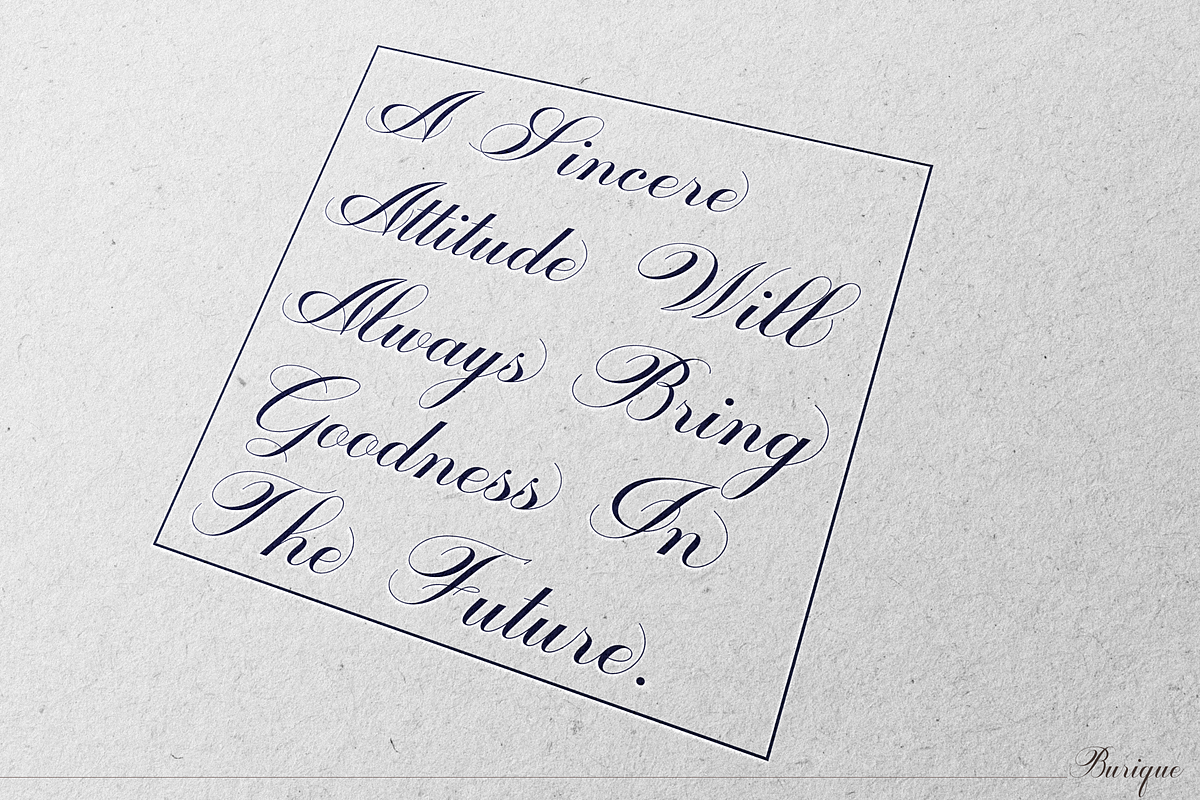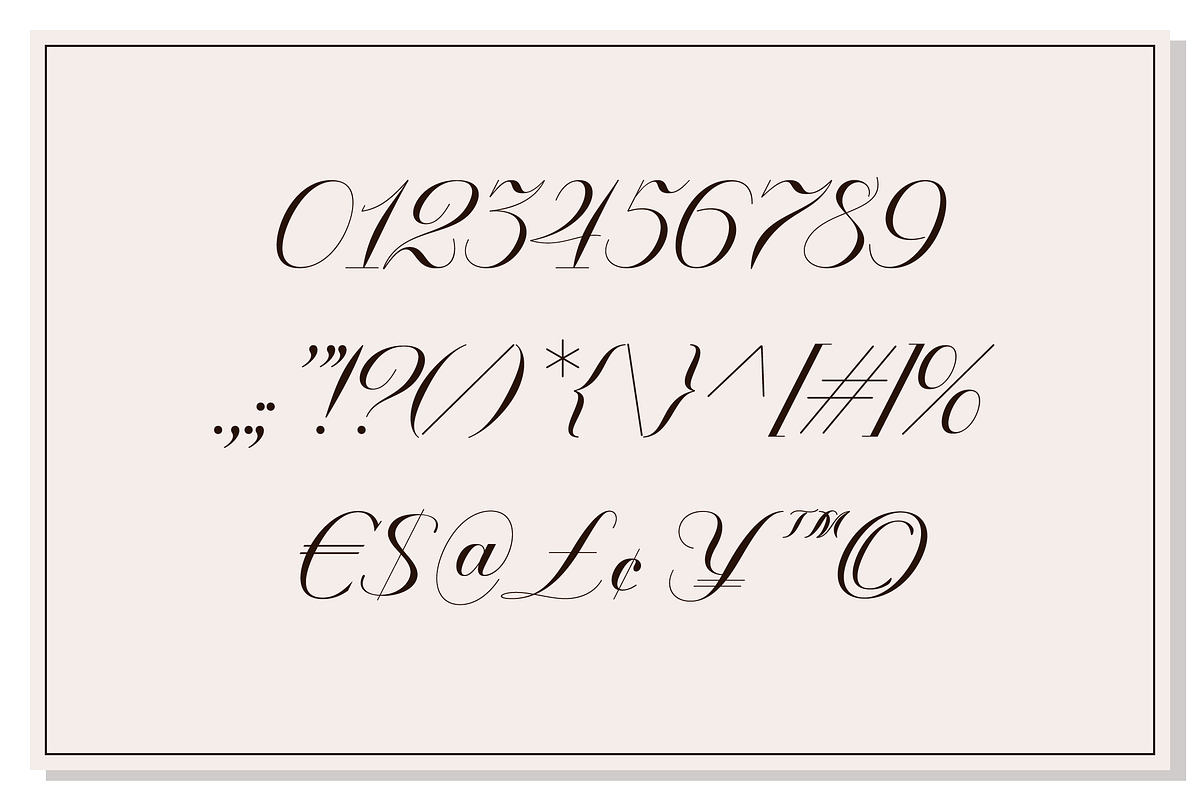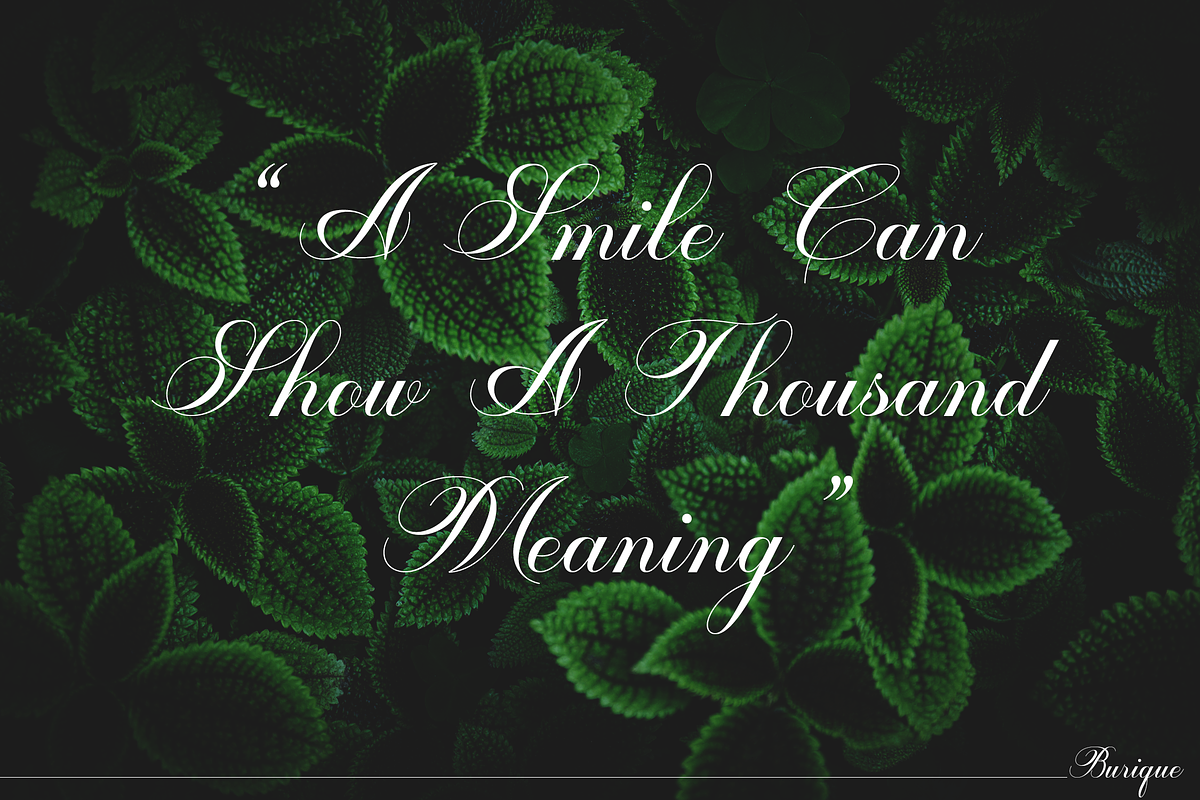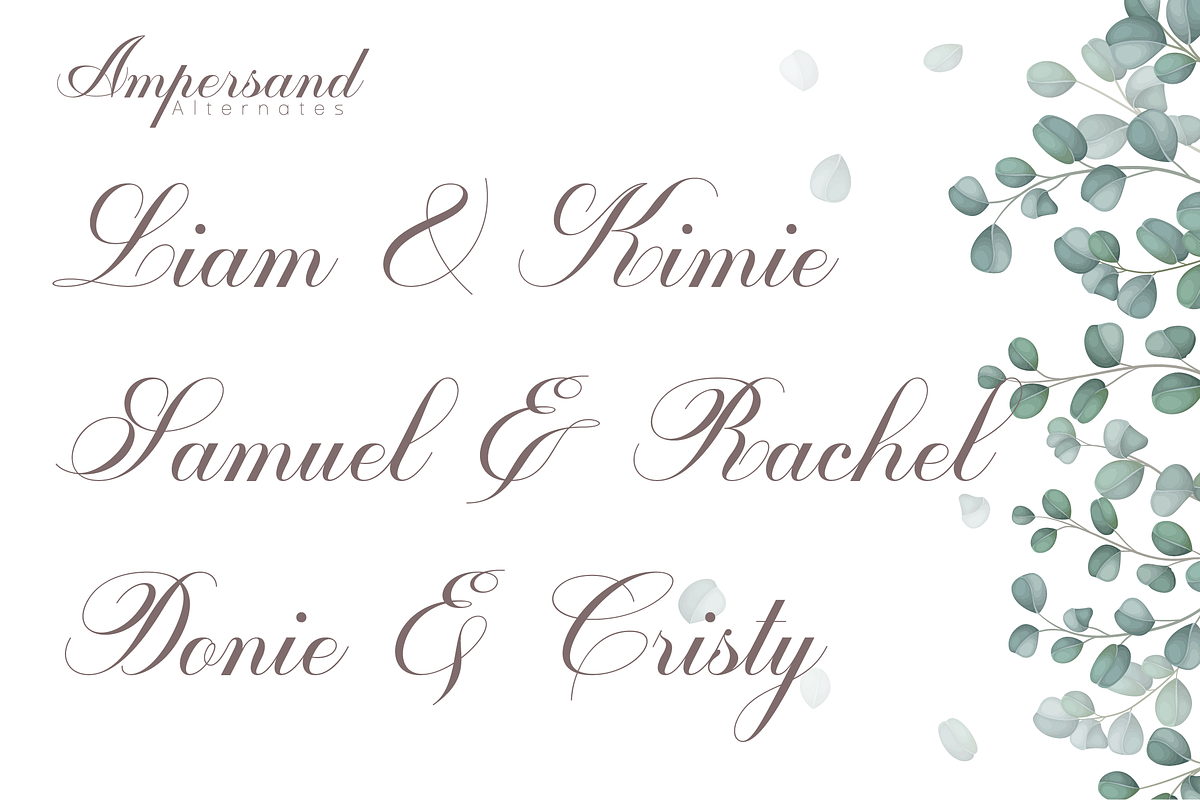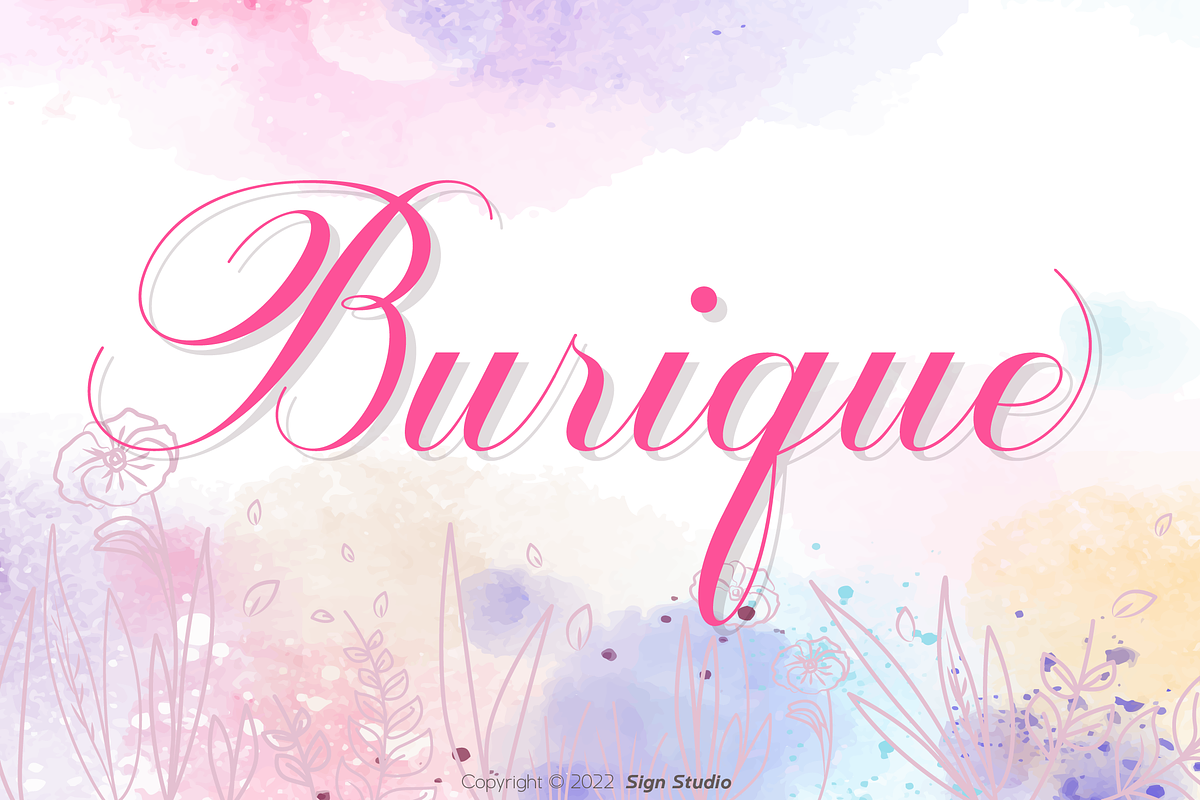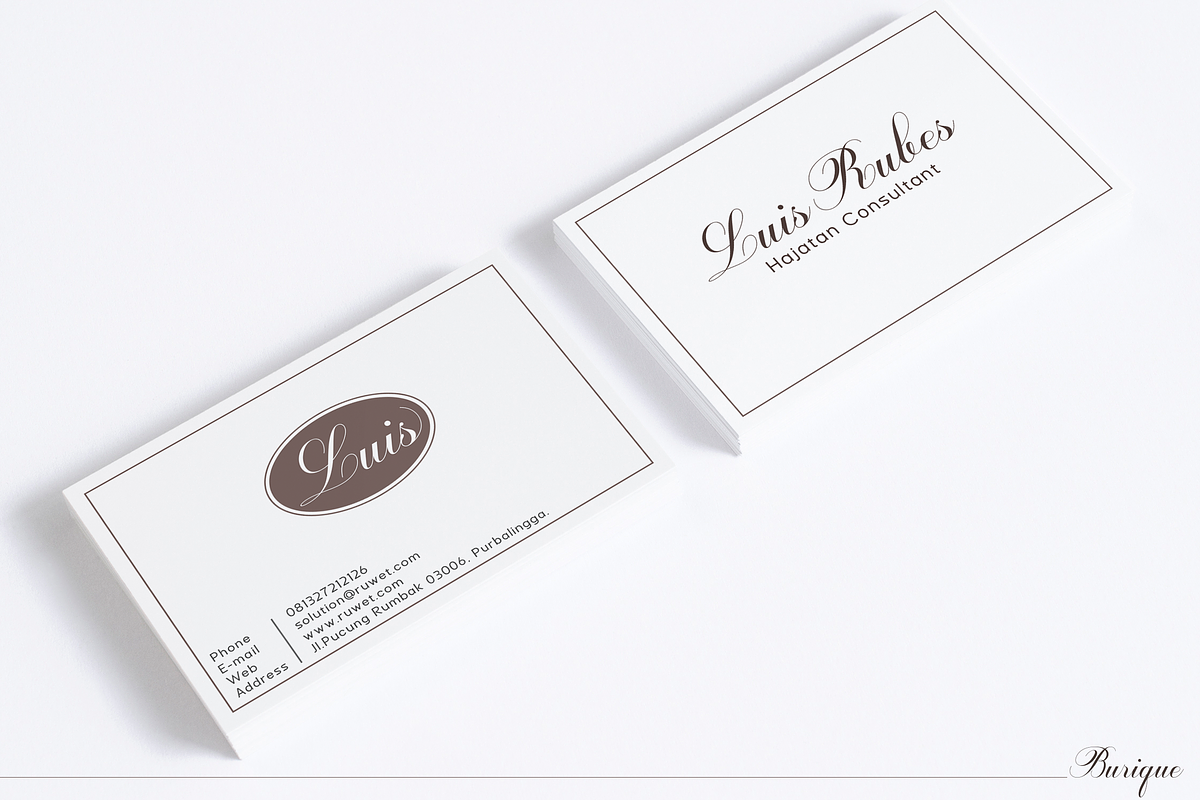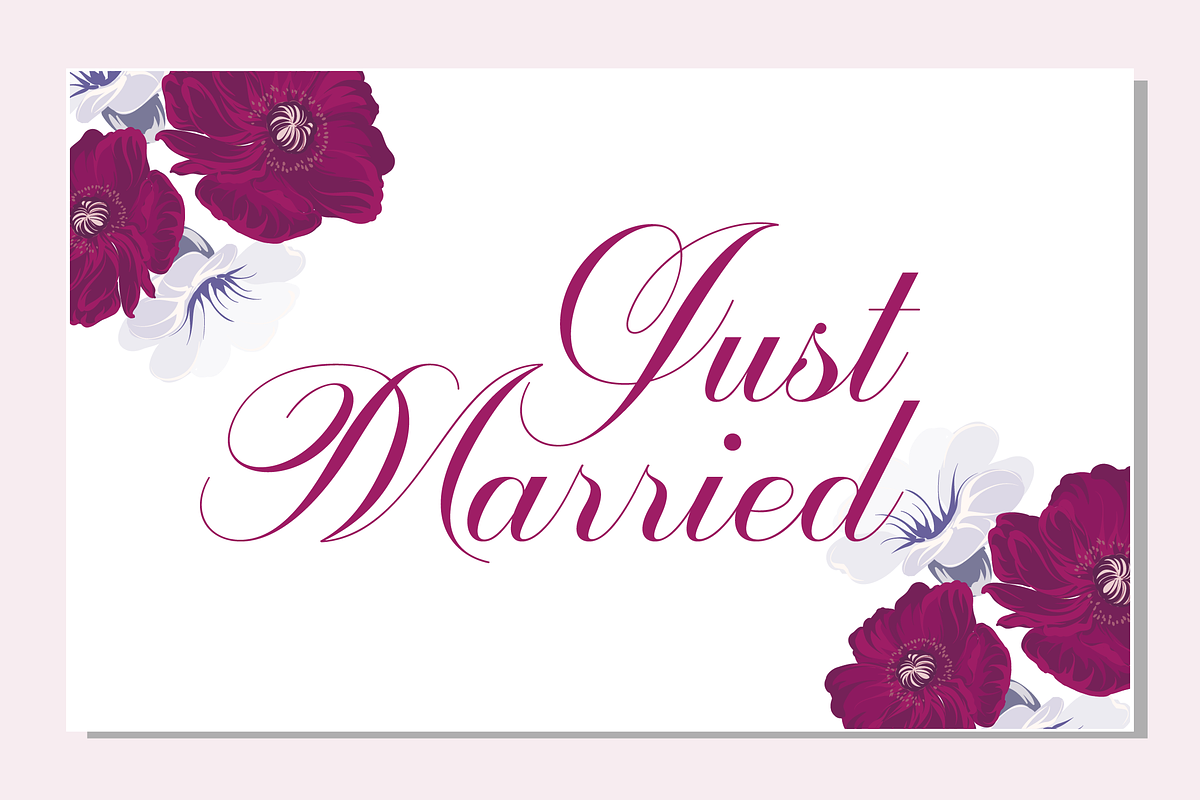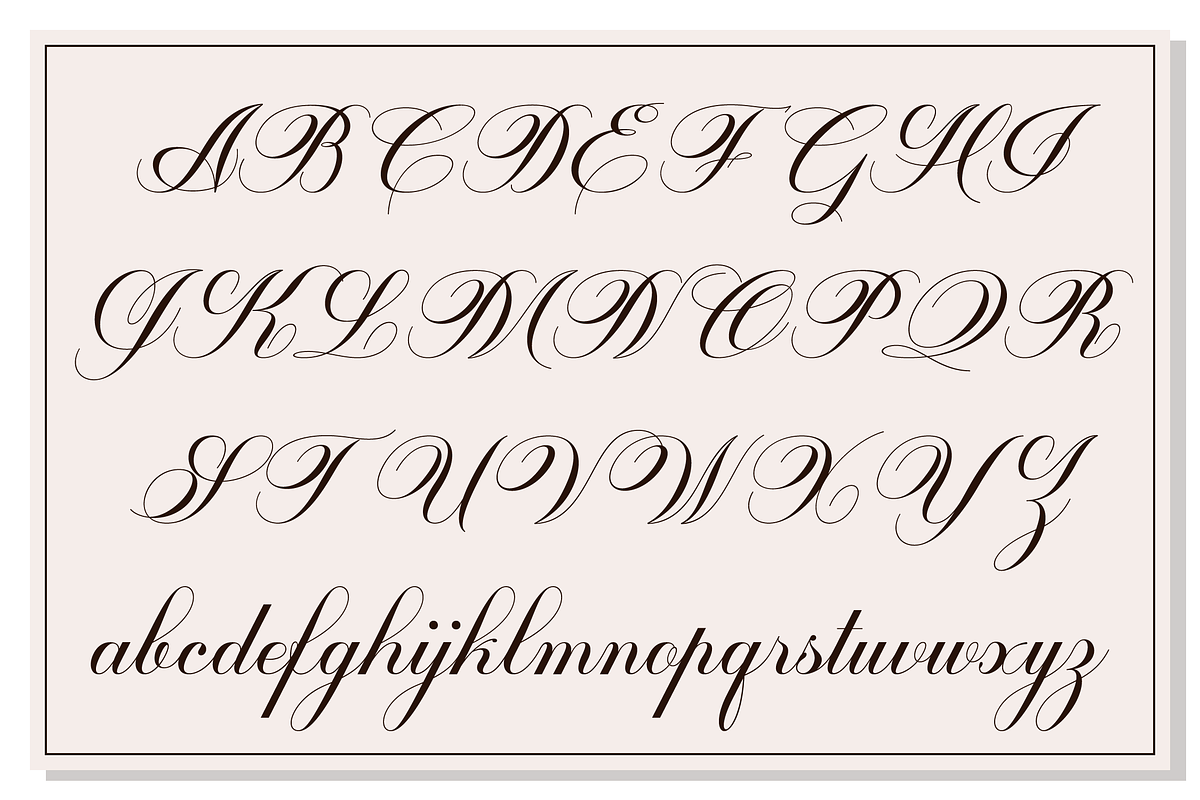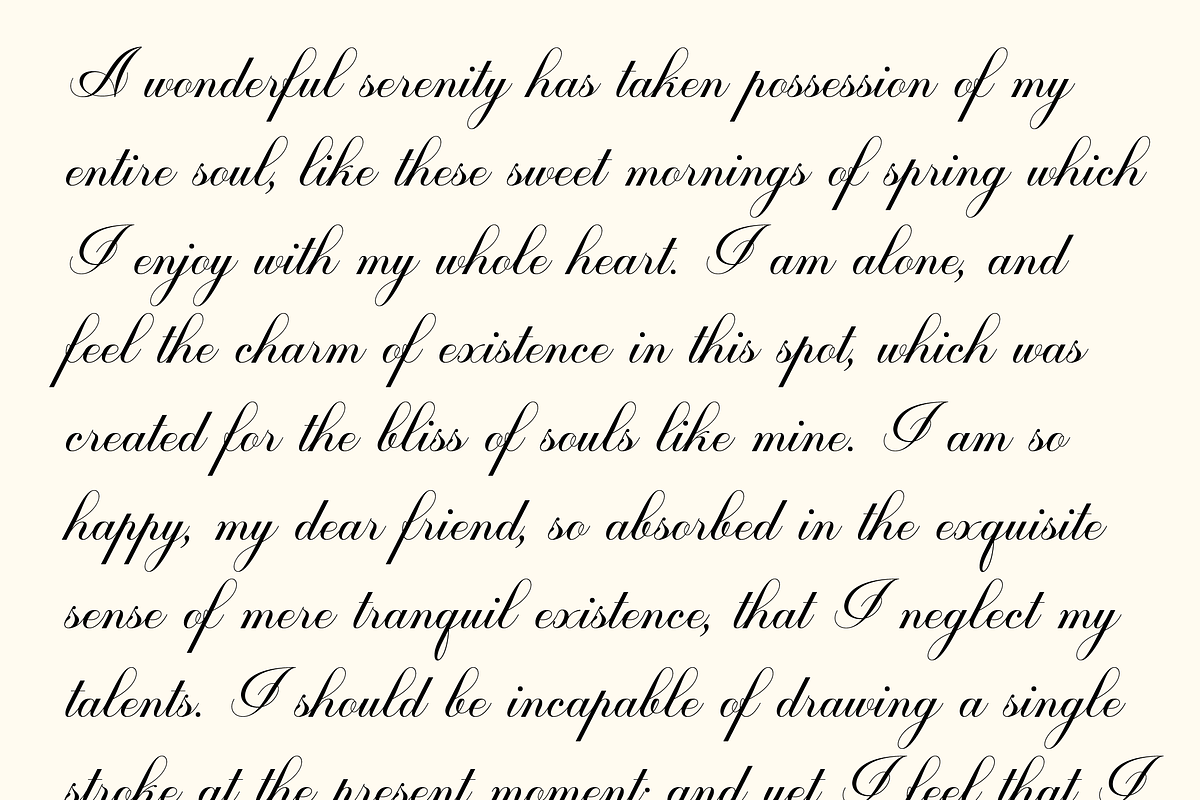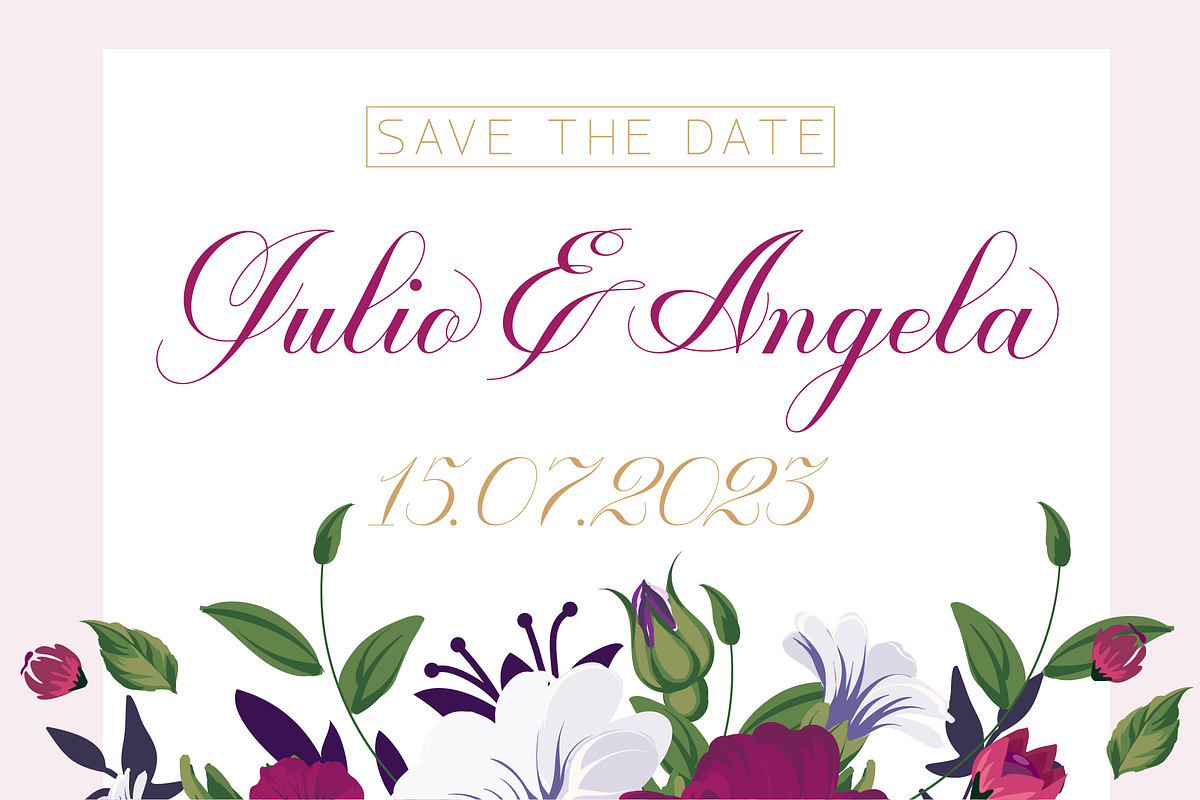
Burique - Romantic Italic
Burique is a beautiful and subtle script font made for a romantic and beautiful look. It is perfect for greeting cards, business cards, wedding invitations, posters, logotypes, product branding and more.